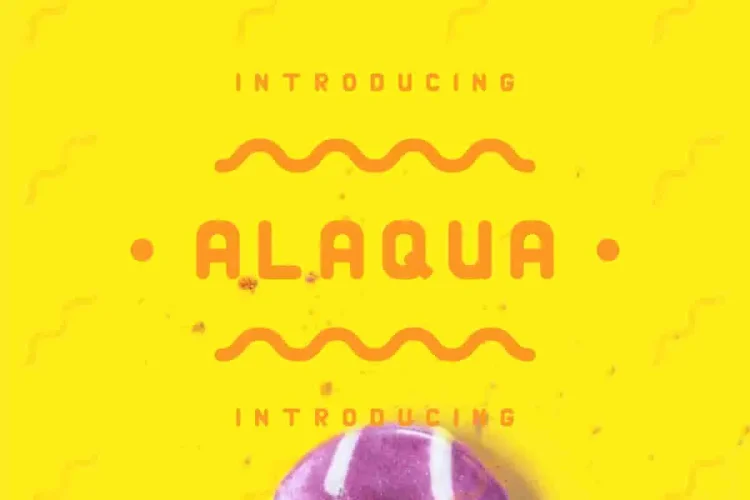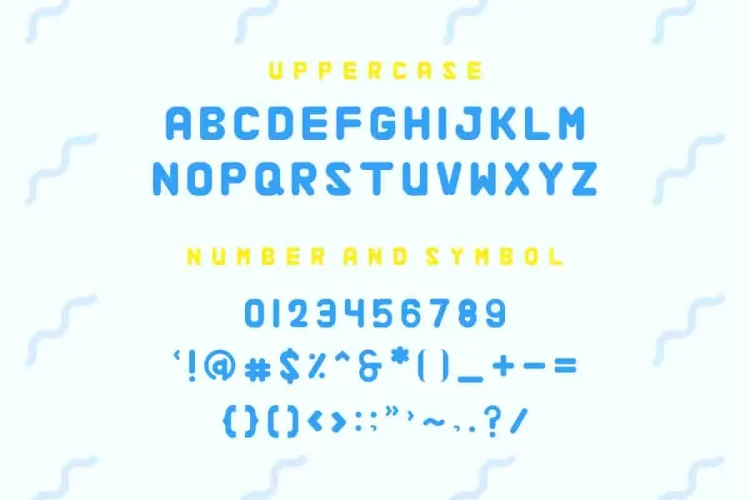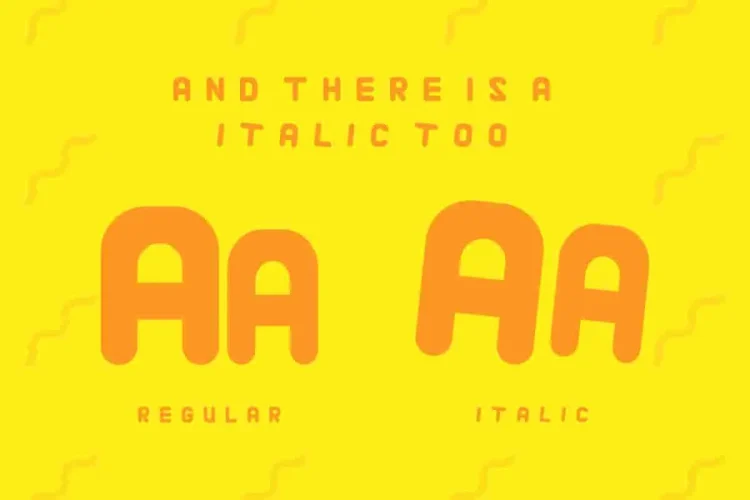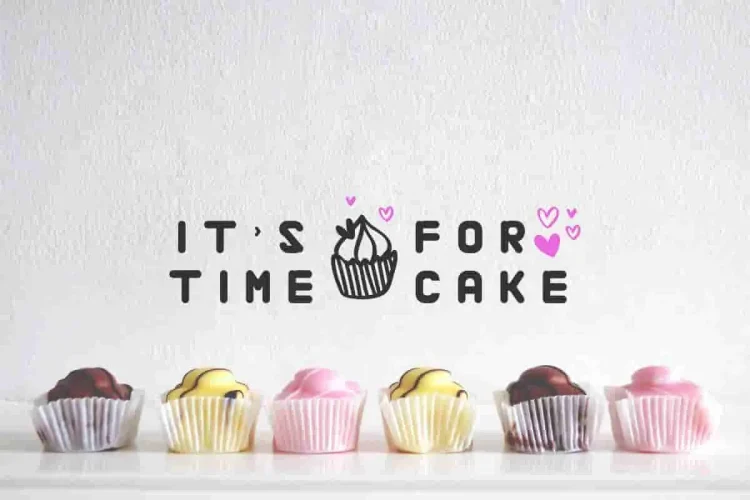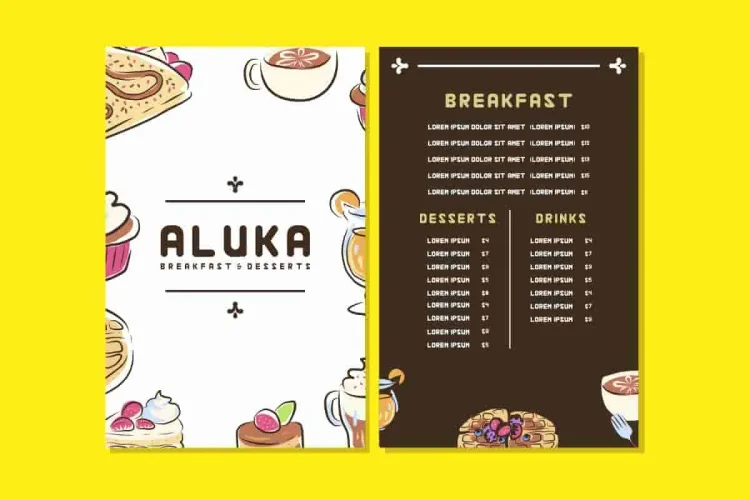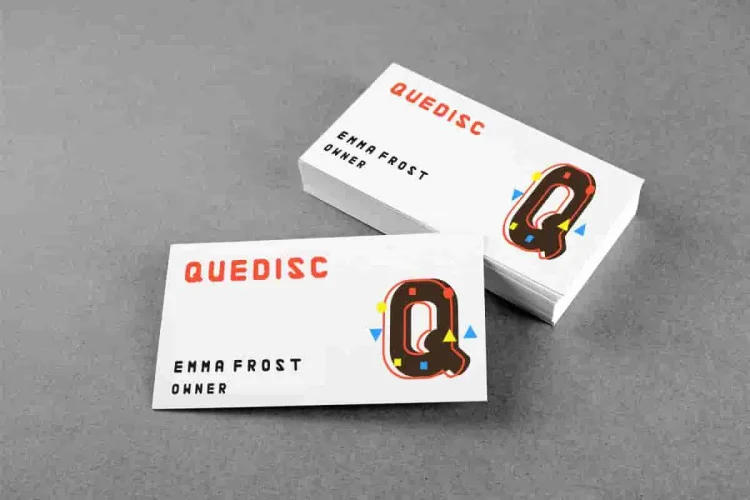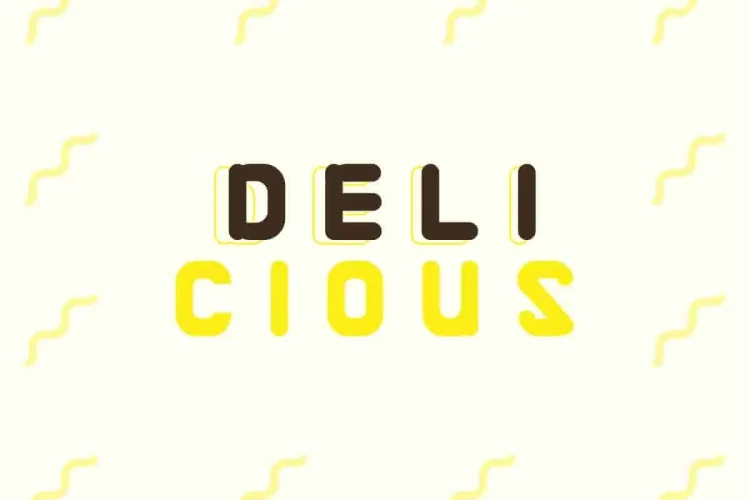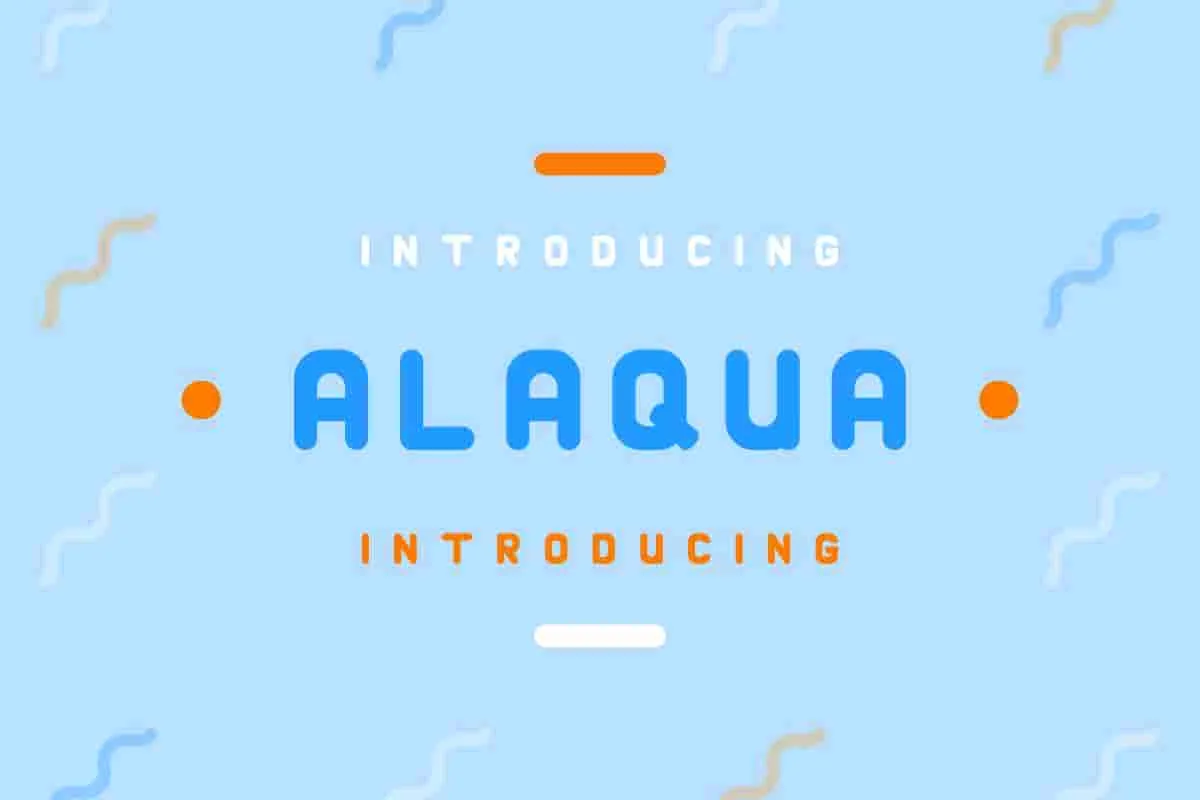
Alaqua Sans Serif Display Fonts
Introducing Alaqua – The Modern Sans Serif Display Font. Looking for a font that brings brightness, fun, and a tropical vibe to your designs? Meet Alaqua, a smooth Sans Serif Display Font with a clean, exclusive shape that makes your work stand out effortlessly.
🔤Alaqua comes with THREE versatile styles: Regular, Italic, and Outline.
• Regular: Clean, bold, and highly readable for branding, headlines, and packaging.
• Italic: Adds a playful, dynamic feel to your designs.
• Outline: Perfect for modern, stylish accents or layered typography projects.
Alaqua Sans Serif Display Font is designed with a smooth, flawless finish, making it ideal for food packaging, beverage labels, street food branding, summer cafes, tropical-themed events, cheerful social media posts, and colorful marketing campaigns.
💡 What makes Alaqua unique?
Its exclusive shapes and sleek curves bring a refreshing aesthetic that instantly communicates positivity and warmth. Whether you design for a tropical smoothie brand, streetwear café, vibrant festival poster, or fun product packaging, Alaqua gives your typography a modern yet approachable edge.